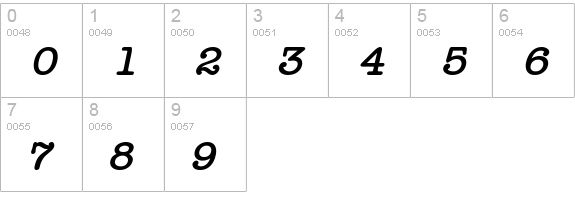
Typist Bold Italic Font Details
Typist Bold Italic is a strong, high-contrast, italic variant in the Typist typeface family \xE2\x80\x94 well suited to headlines, attention-grabbing titles, and strong calls-to-action.
Typist Bold Italic font is a stunning typeface that exudes confidence and boldness. With its slanted and stylized characters, this font adds a touch of elegance and sophistication to any project. Its strong and distinct letterforms make it perfect for headlines, logos, and branding materials. What sets Typist Bold Italic font apart is not only its impeccable design but also its accessibility. This font is available for free download at FontsMarket.com, making it a great choice for designers, students, and anyone looking to add a unique and eye-catching touch to their work without breaking the bank. Whether you're designing a website, creating a poster, or adding flair to your social media posts, Typist Bold Italic font will make a lasting impression. Its sleek and modern aesthetic is sure to captivate your audience and elevate your design to new heights. So, why wait? Head over to FontsMarket.com today and download Typist Bold Italic font for free!